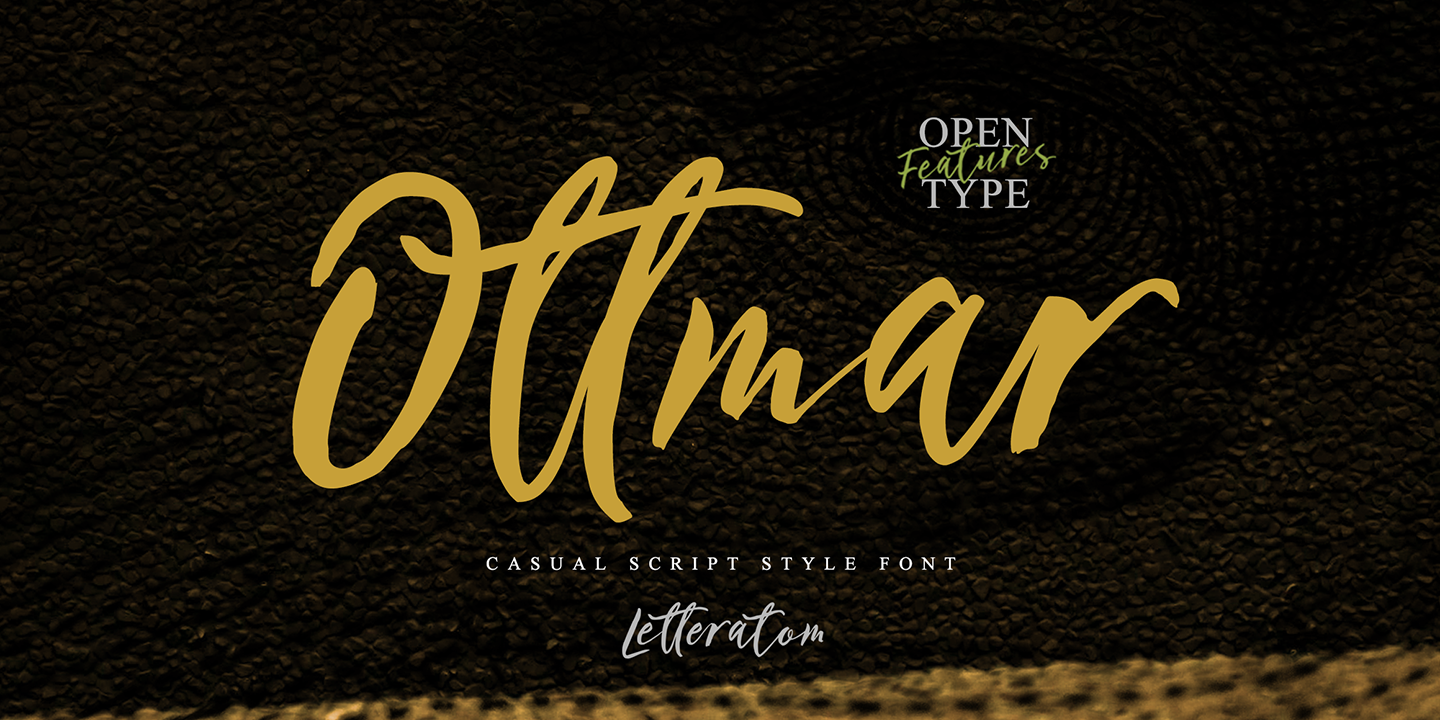
Ottmar Font is ideal for traditional German branding, heritage brewery signage, Alpine tourism marketing, classic European publications, cultural festival graphics, authentic Bavarian restaurants, and distinguished Germanic design projects.
What makes Ottmar Font exciting is its Germanic heritage and traditional authenticity, featuring strong letterforms that capture the essence of European craftsmanship while delivering distinguished visual character and cultural genuineness.
The Ottmar Font family includes Light, Regular, Medium, Bold, and Heavy weights, plus traditional variants and Germanic alternates that enhance the font's cultural character and heritage possibilities.
Ottmar Font Free Download embodies the distinguished tradition of Germanic culture and the authentic spirit of European heritage through masterful typography design. This distinguished typeface captures the solid craftsmanship of German artisans and the cultural depth of Alpine traditions, creating a strong visual language that speaks to heritage enthusiasts and cultural organizations who value traditional authenticity, European craftsmanship, and the enduring appeal of Germanic cultural heritage. The font's traditional character and Germanic appearance make it perfect for breweries, cultural institutions, and heritage brands that want to communicate authenticity, tradition, and the distinguished appeal of European cultural legacy.
Breweries and cultural heritage organizations consistently choose Ottmar Font for projects that require authentic Germanic credibility and traditional visual appeal. The typeface's strong construction and cultural personality make it exceptionally effective for German restaurants, Alpine resorts, and cultural festivals where heritage authenticity and European tradition are paramount. Each character has been crafted with traditional precision to ensure maximum authenticity across all cultural applications and heritage environments.
The cultural advantages of Ottmar Font extend beyond its Germanic appeal to include practical functionality for diverse heritage applications. The font maintains excellent readability in traditional settings while delivering the distinctive character that creates meaningful cultural connections and resonates with audiences seeking authentic European heritage. Its comprehensive character set includes cultural symbols and traditional elements that make it particularly suitable for heritage documentation and cultural communication.
German restaurants, Alpine resorts, and cultural heritage organizations frequently incorporate Ottmar Font into their brand identity systems because of its ability to instantly convey Germanic authenticity and cultural sophistication. The typeface's traditional aesthetic helps establish credibility in heritage markets while appealing to audiences who value European culture, traditional craftsmanship, and the distinguished experiences that come from authentic Germanic heritage and cultural tradition.